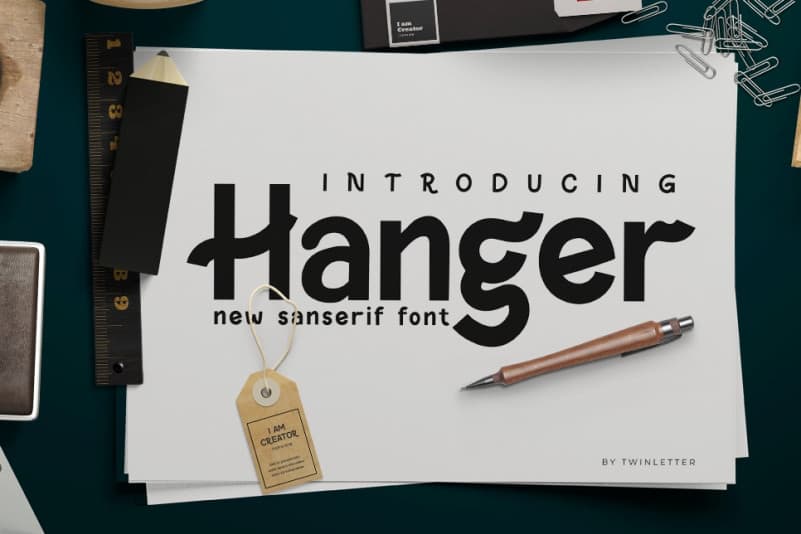
Hanger Sans Serif Font is a stylish and beautiful sans serif font with an elegant feel. This typeface makes for unique titles and logos in a luxurious and stylish look. Designed for large font display settings.
Hanger Sans Serif Font is a mixture of modern and classic styles, cleanliness, and irregular shape representing the future, while its elegant indentations mimic old-style typography, thick-thin fonts to beautify the appearance.